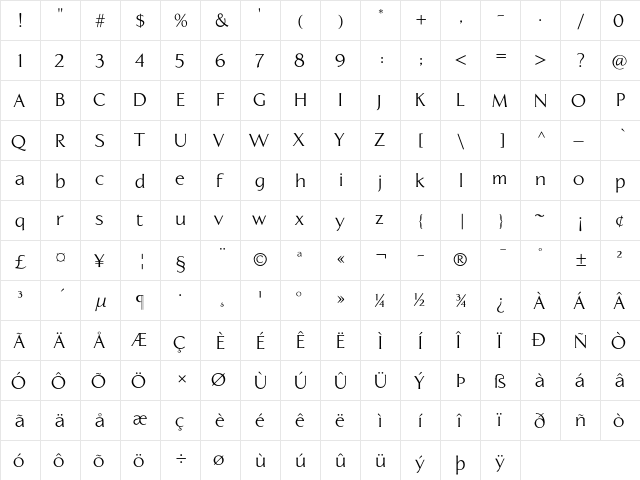
Aperto Regular Font Preview
Aperto Regular Regular
Design Context for Aperto Regular Typeface
Aperto Regular takes a measured approach to typography — its balanced proportions and neutral character make it a reliable workhorse for both digital and print work.